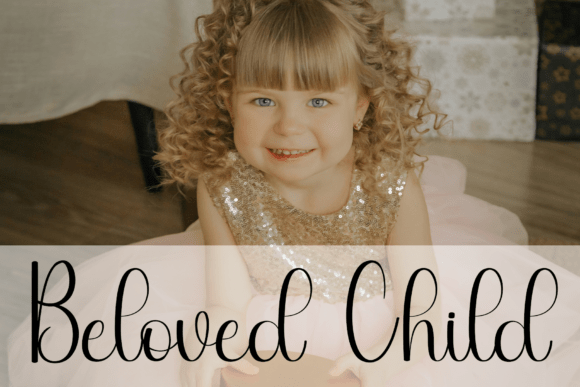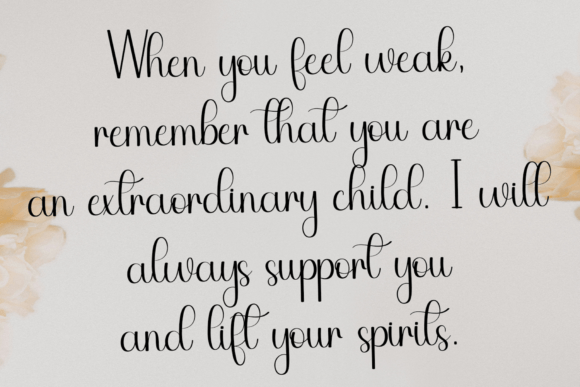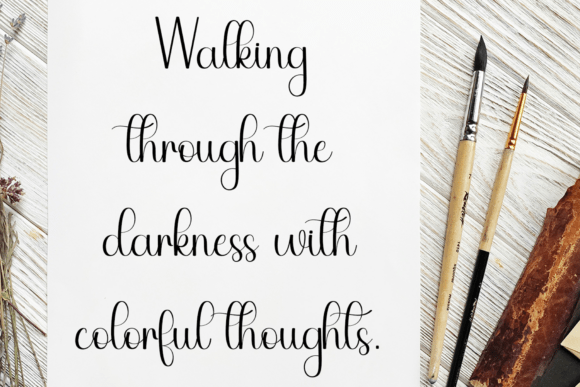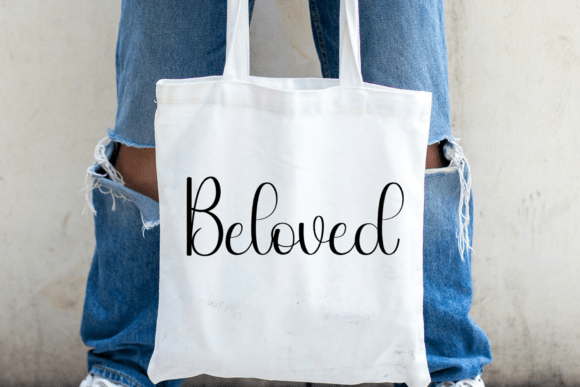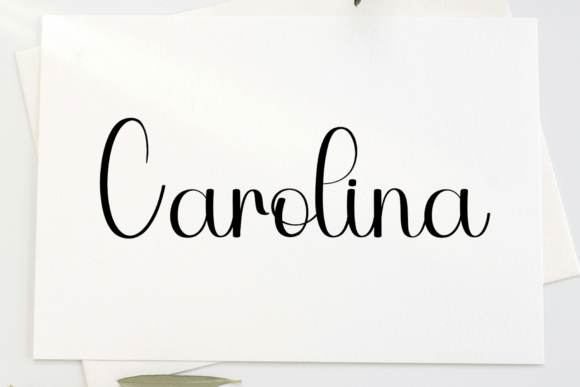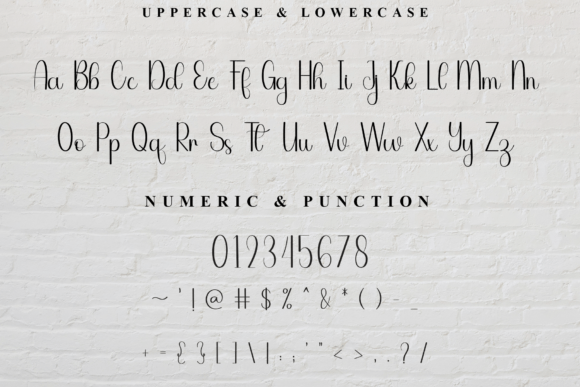
Baby Boho Font: The Perfect Addition to Your Design Arsenal
Are you a designer or crafter looking for a font that exudes warmth, friendliness, and a touch of playfulness? Look no further than the Baby Boho font. This casual and creative font is perfect for personal projects, invitations, social media graphics, and any other design that requires a relaxed and approachable feel.
The Characteristics of Baby Boho Font
The Baby Boho font is characterized by its round, playful strokes that create a charming and hand-drawn aesthetic. The font’s unique touch adds a fun and creative element to any design, making it perfect for designers and crafters who want to add a personal touch to their work.
One of the standout features of the Baby Boho font is its ability to evoke a sense of warmth and friendliness. The font’s playful strokes and rounded edges create a soft and approachable feel that is perfect for designs that require a personal touch.
Uses of Baby Boho Font
The Baby Boho font is incredibly versatile and can be used for a wide range of design projects. Here are just a few examples:
- Personal Projects: Whether you’re working on a personal blog, a DIY project, or a handmade craft, the Baby Boho font is perfect for adding a personal touch.
- Invitations: The font’s playful and creative aesthetic makes it perfect for invitations, including birthday parties, baby showers, and other celebrations.
- Social Media Graphics: The Baby Boho font is also perfect for social media graphics, including Facebook posts, Instagram stories, and Twitter headers.
Benefits of Using Baby Boho Font
So why should you choose the Baby Boho font for your design projects? Here are just a few benefits:
- Unique Aesthetic: The Baby Boho font has a unique and creative aesthetic that will set your designs apart from the crowd.
- Easy to Use: The font is easy to use and is compatible with a wide range of design applications.
- Versatile: The Baby Boho font can be used for a wide range of design projects, from personal projects to social media graphics.
In conclusion, the Baby Boho font is a must-have for designers and crafters who want to add a touch of warmth, friendliness, and playfulness to their designs. With its unique aesthetic, ease of use, and versatility, this font is perfect for a wide range of design projects. So why not give it a try and see how it can elevate your designs?
Whether you’re working on a personal project, creating invitations, or designing social media graphics, the Baby Boho font is sure to become a staple in your design arsenal.